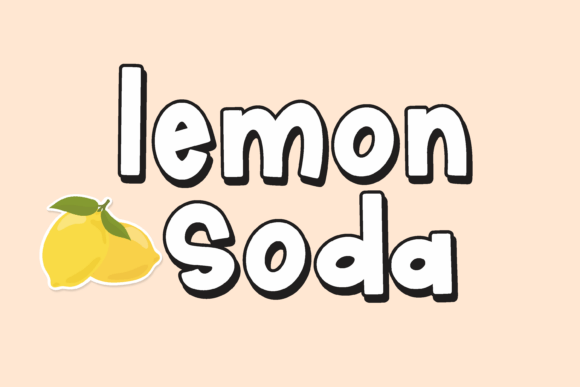
Lemon Soda Font: A Playful and Cheerful Display Font
Lemon Soda Font is a vibrant and lively display font that is sure to bring a touch of joy and imagination to every project. With its bold, bubbly shapes and fun, child-like style, this font is perfect for capturing the innocence and creativity of childhood. In this article, we will explore the features and benefits of Lemon Soda Font, and how it can add a splash of fun and personality to your designs.
The Inspiration Behind Lemon Soda Font
Lemon Soda Font is a font that is inspired by the carefree and playful spirit of childhood. The font’s creator aimed to capture the essence of fun and imagination that defines this stage of life, and to bring it into the world of design. The result is a font that is both playful and cheerful, with a unique and distinctive style that sets it apart from other fonts.
Key Features of Lemon Soda Font
Lemon Soda Font has several key features that make it a standout font. Some of its notable features include:
- Bold and bubbly shapes: The font features bold and bubbly shapes that give it a playful and cheerful feel.
- Fun and child-like style: The font has a fun and child-like style that is perfect for designs that aim to be friendly and approachable.
- Whimsical touch: Each letter is crafted with a whimsical touch, making the font ideal for designs that require a touch of imagination and creativity.
Uses of Lemon Soda Font
Lemon Soda Font is a versatile font that can be used in a variety of design projects. Some of the ways you can use this font include:
- Children’s products: The font is perfect for designs aimed at children, such as toys, games, and educational materials.
- Branding and packaging: The font’s playful and cheerful style makes it ideal for branding and packaging designs that require a touch of fun and personality.
- Advertising and marketing: The font can be used in advertising and marketing materials, such as posters, flyers, and social media graphics.
- Digital and print media: The font can be used in both digital and print media, including websites, blogs, magazines, and newspapers.
Benefits of Using Lemon Soda Font
There are several benefits to using Lemon Soda Font in your designs. Some of the benefits include:
- Unique and distinctive style: The font’s unique and distinctive style sets it apart from other fonts and can help your designs stand out.
- Playful and cheerful feel: The font’s playful and cheerful feel can help to create a positive and uplifting atmosphere in your designs.
- Versatility: The font is versatile and can be used in a variety of design projects.
Lemon Soda Font is a playful and cheerful display font that is sure to bring a touch of joy and imagination to every project. With its bold, bubbly shapes and fun, child-like style, this font is perfect for capturing the innocence and creativity of childhood. Whether you’re designing for children or just want to add a touch of fun and personality to your designs, Lemon Soda Font is a great choice. So why not add it to your font collection today and let your creativity fizz with fun?
- What is Lemon Soda Font?: Lemon Soda Font is a playful and cheerful display font designed to bring joy and imagination to every project.
- What are the key features of Lemon Soda Font?: The font features bold and bubbly shapes, a fun and child-like style, and a whimsical touch.
- What can I use Lemon Soda Font for?: You can use Lemon Soda Font for a variety of design projects, including children’s products, branding and packaging, advertising and marketing, and digital and print media.